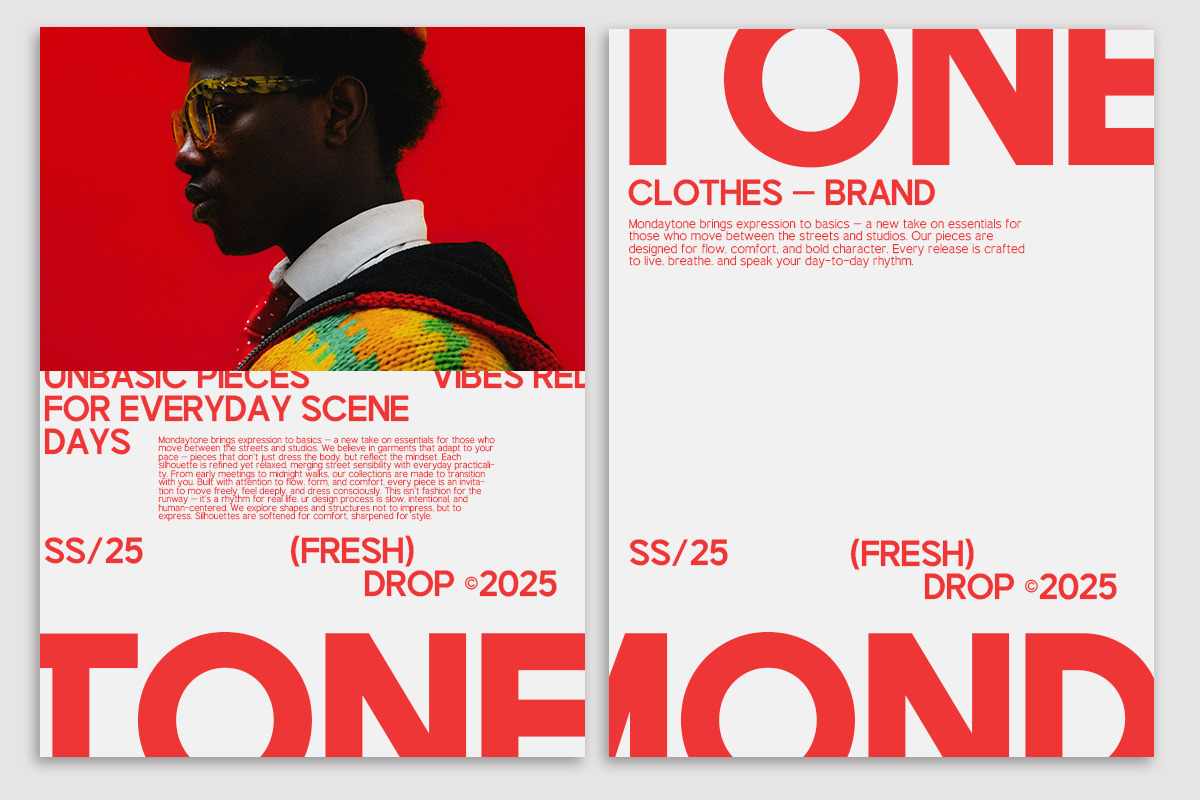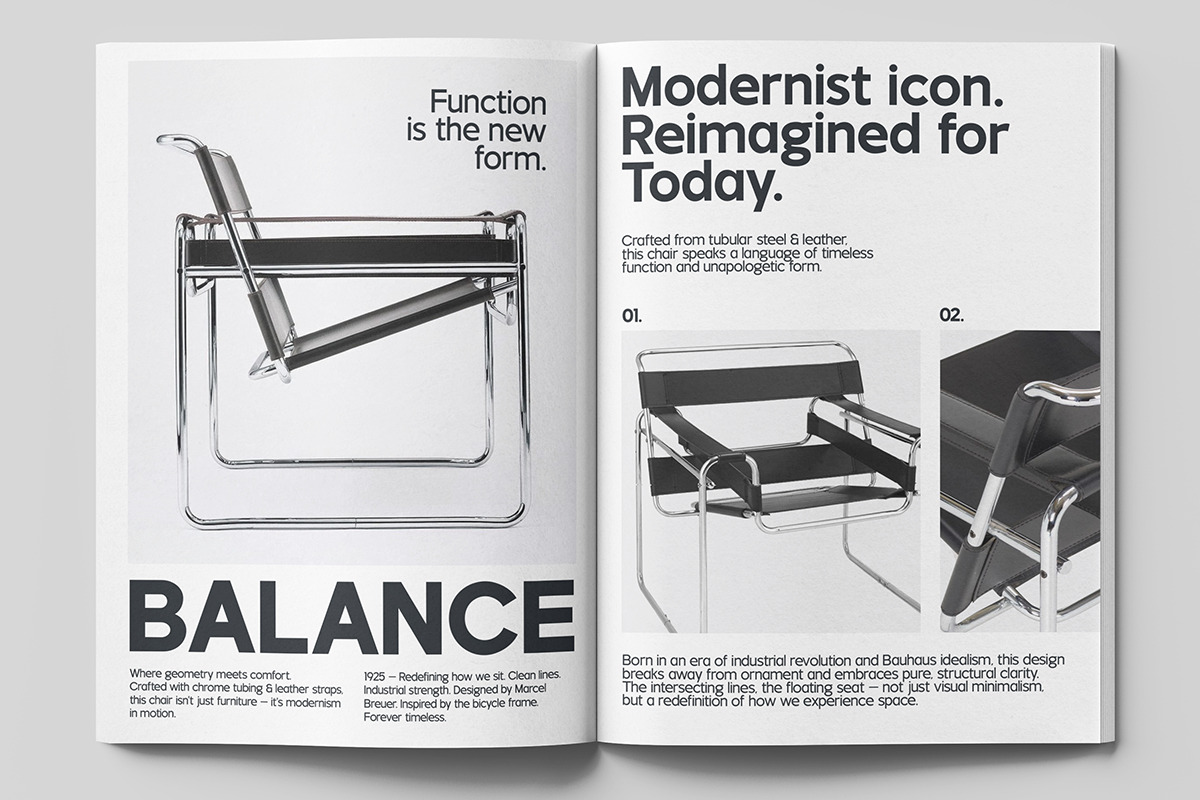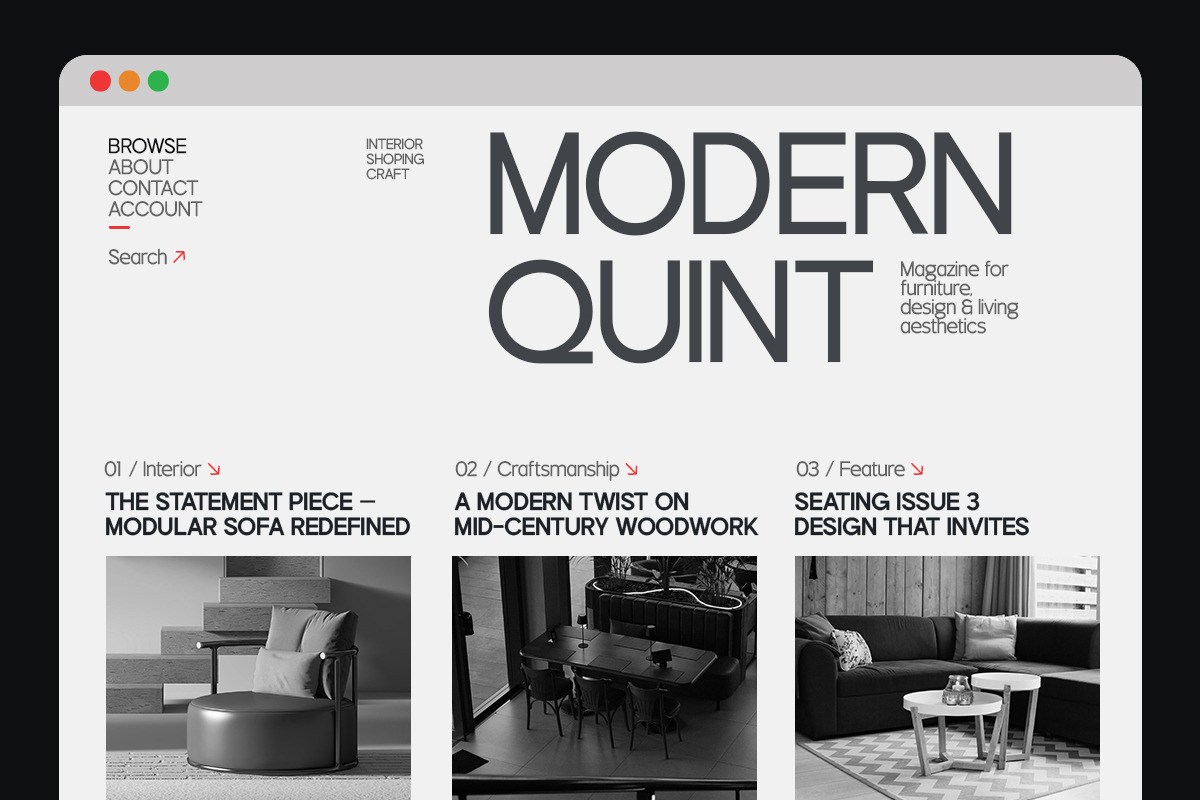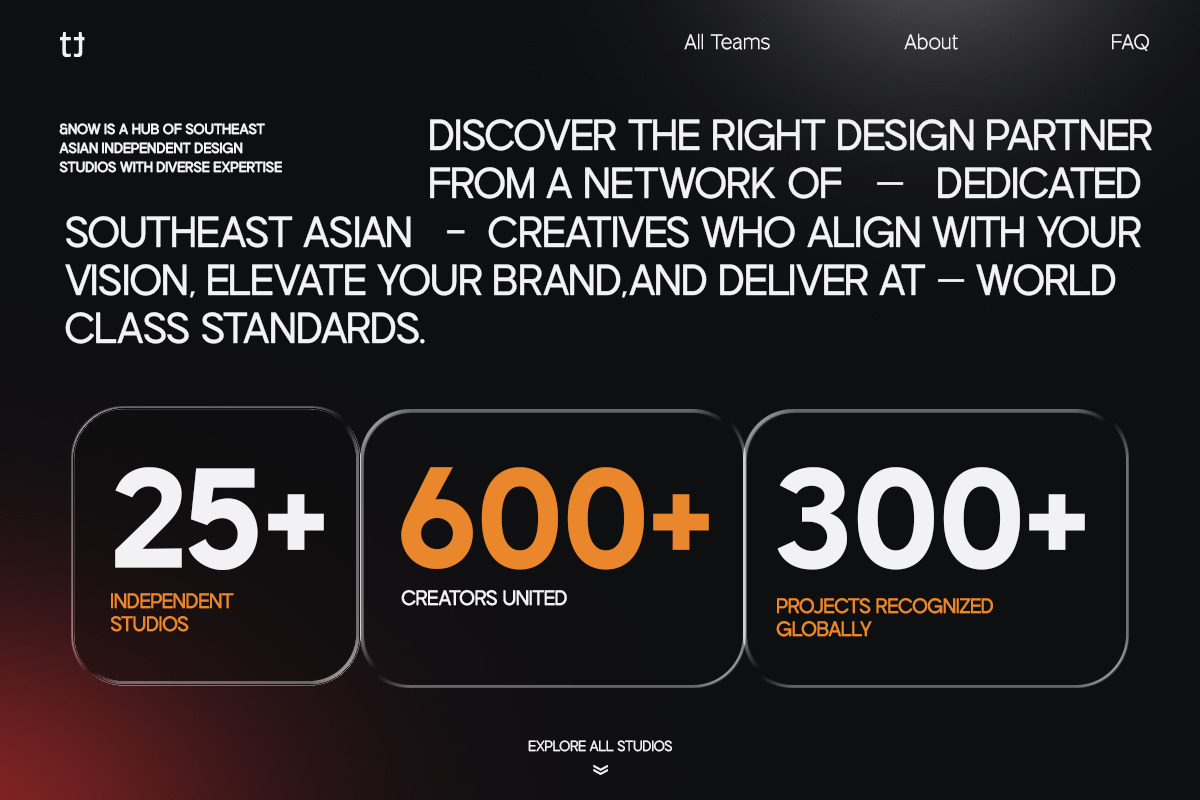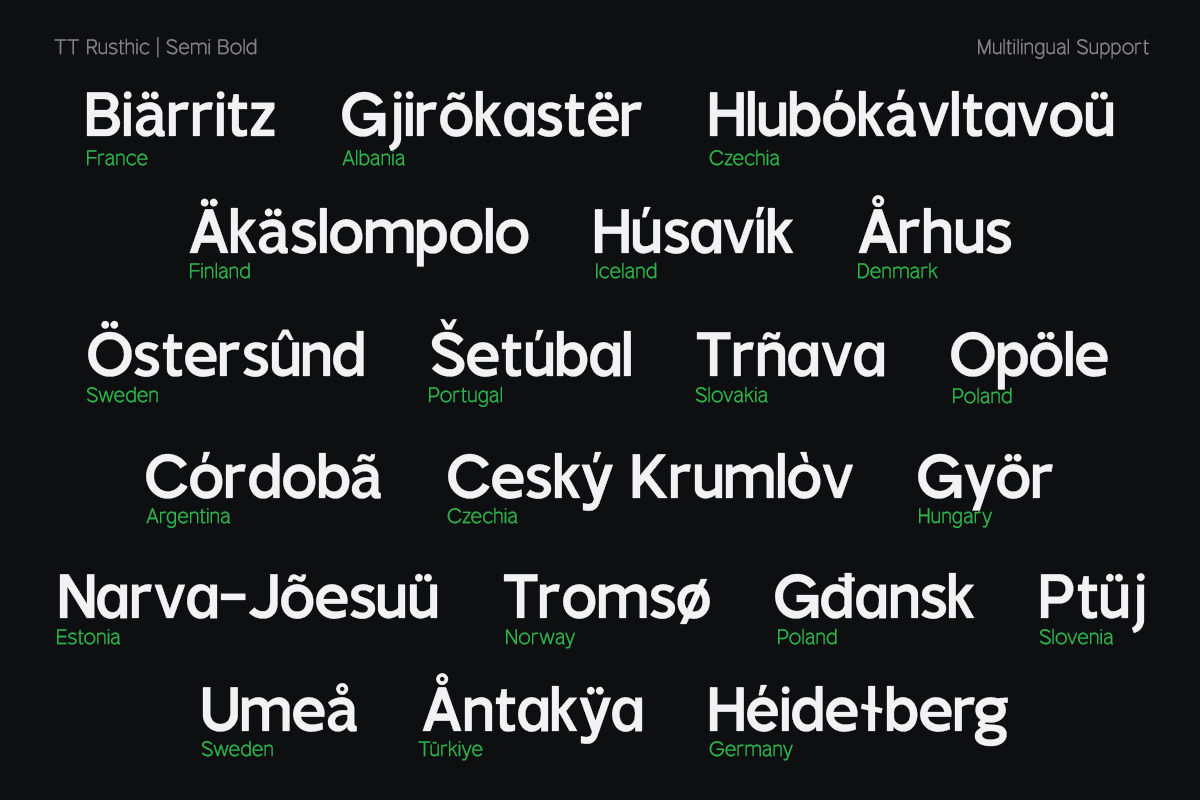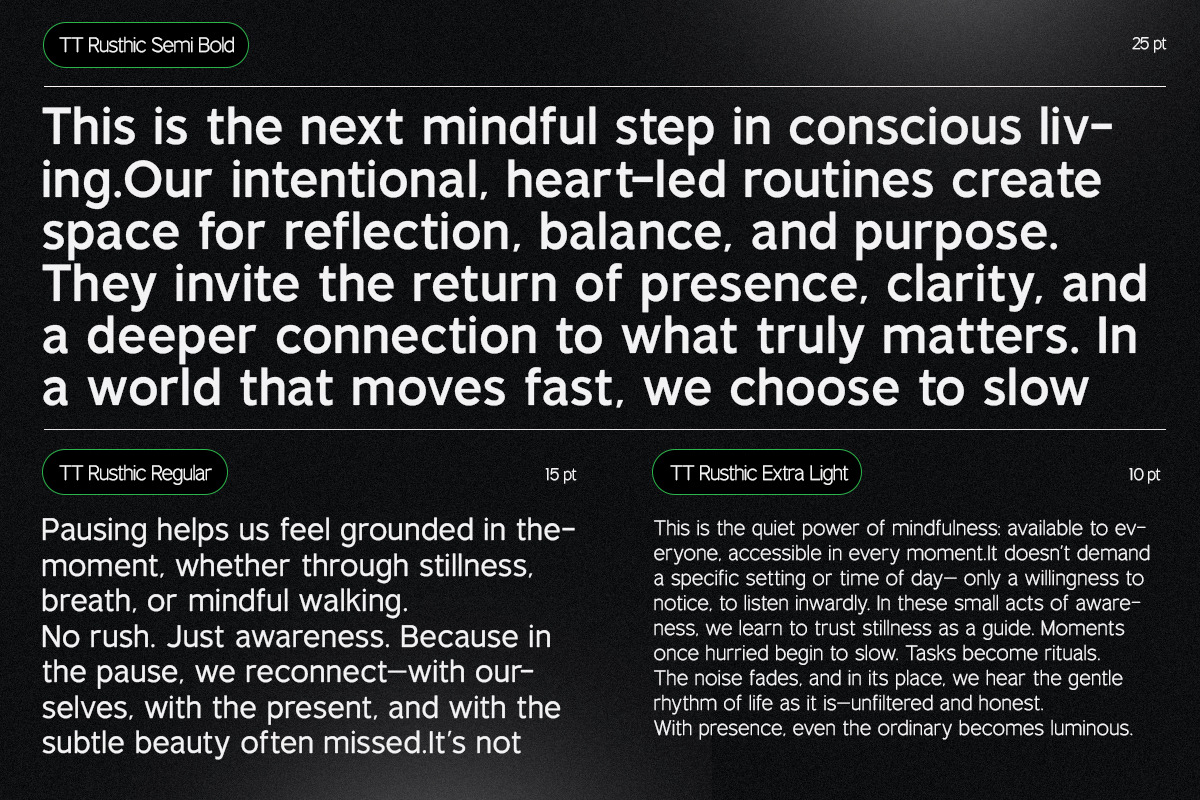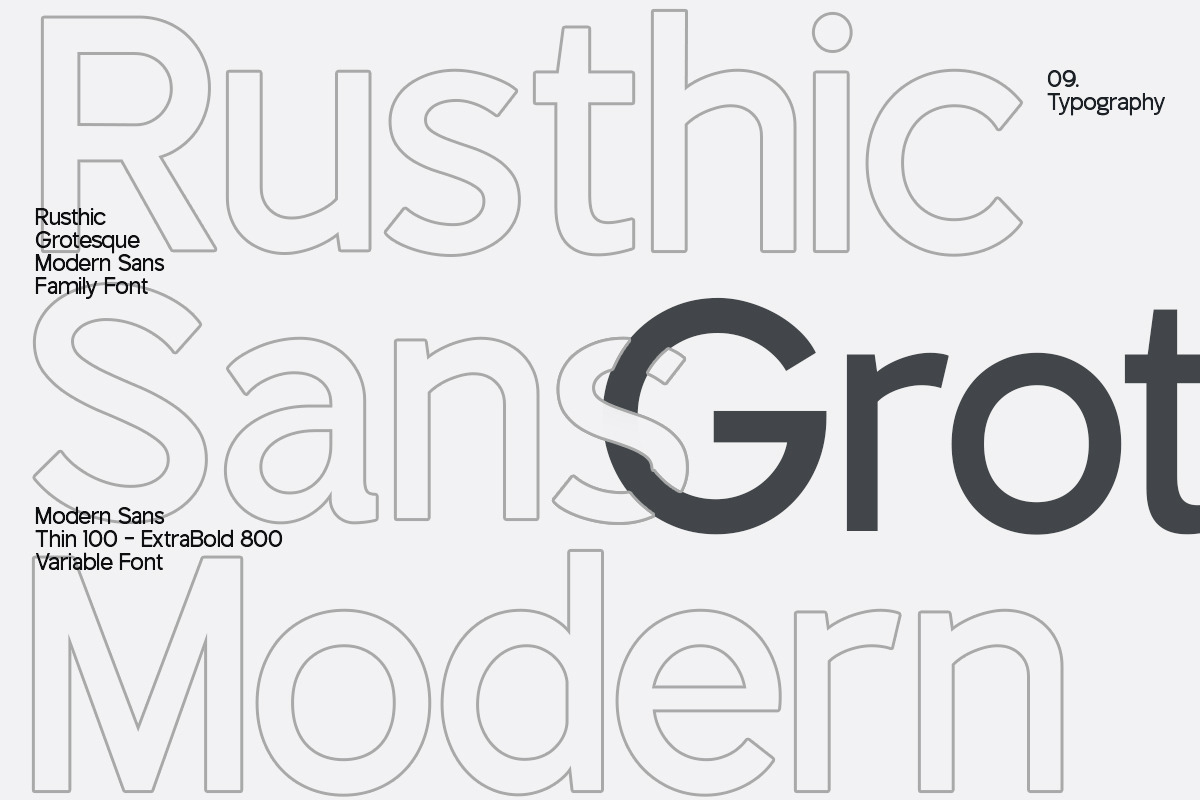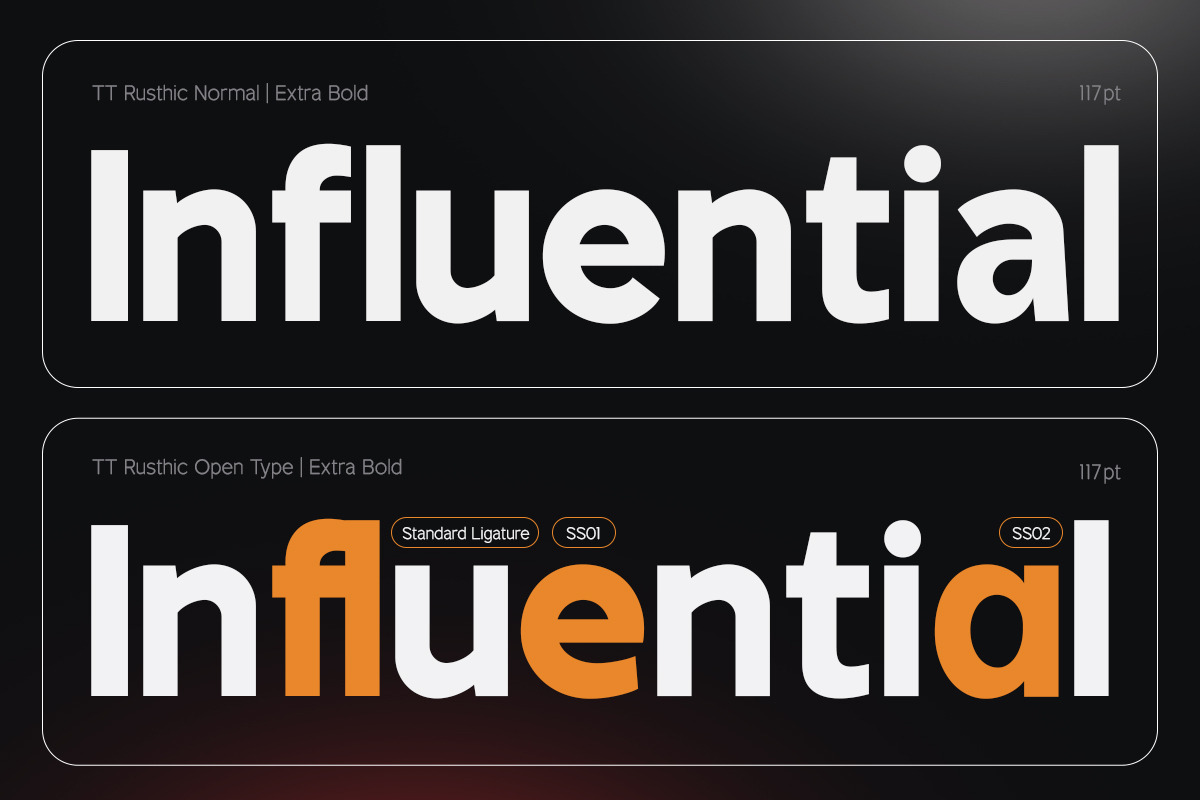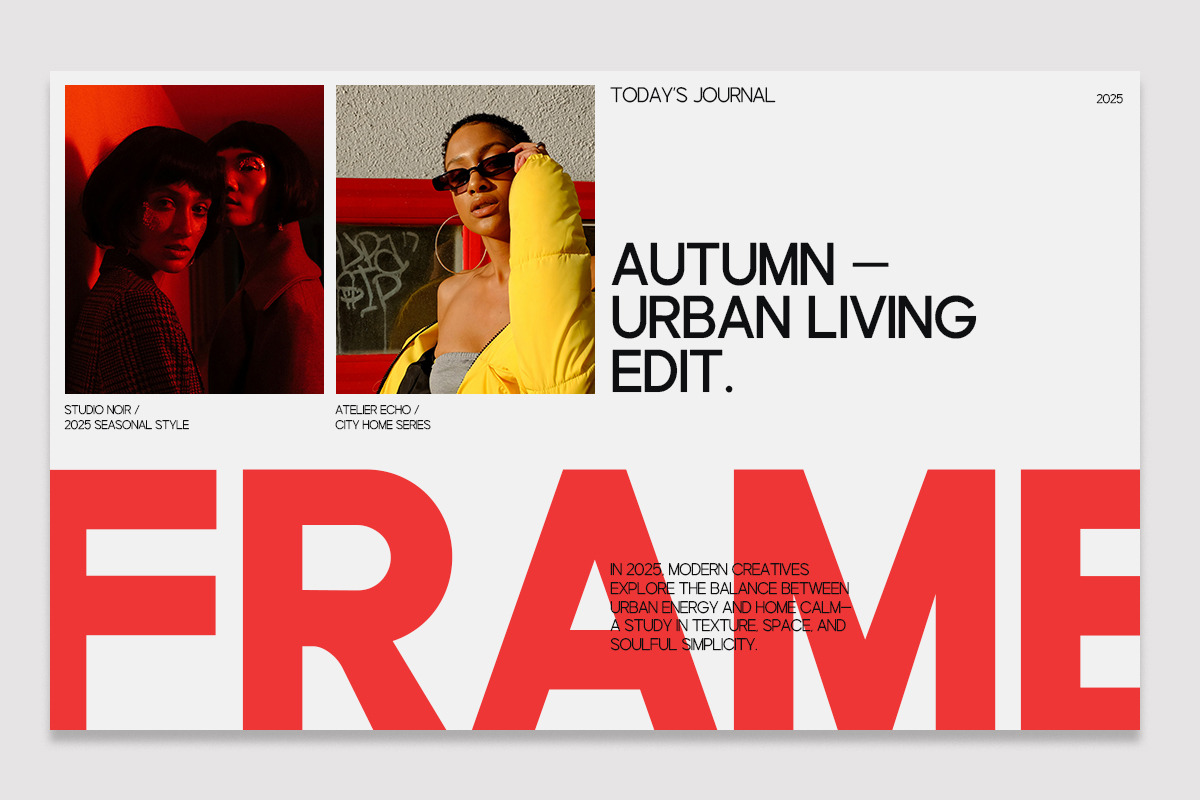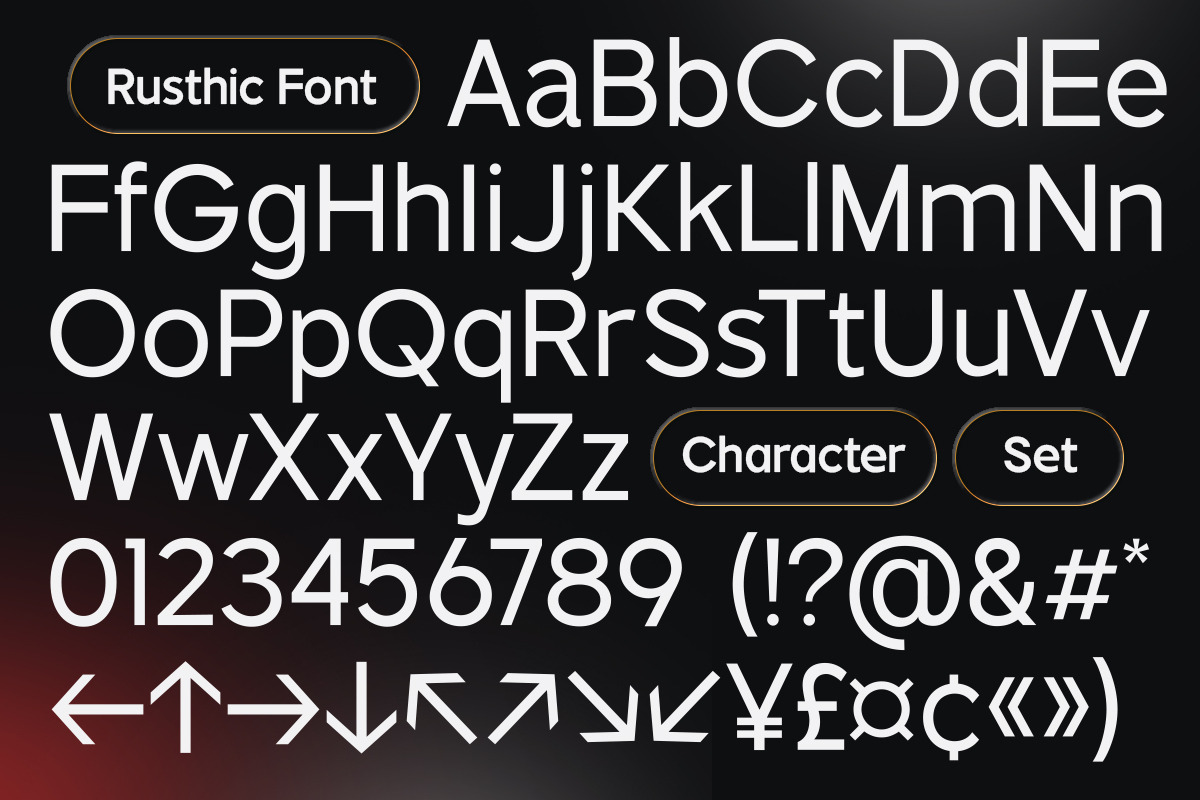
TT Rustic Grotesque Sans
TT Rusthic is a modern, grotesque sans-serif font family designed to bring clarity, flexibility, and contemporary character to your creative work. With a full variable range from Thin 100 to ExtraBold 800, this font adapts easily to a wide range of visual applications—from bold headlines to sleek interface typography.
With clean curves, balanced spacing, and subtle geometric touches, TT Rusthic blends the functional simplicity of grotesque with a warm, modern soul. Its open letterforms and smooth rhythm ensure excellent readability, while its expressive weight range lets you set the right tone for your message.
Whether you're designing brand identities, editorial layouts, digital content, or packaging systems, TT Rusthic delivers a professional yet accessible feel that works beautifully in print and on screen.
Built with OpenType features and full variable support, this font is built to meet the demands of today's fast-paced design world—reliable, flexible, and deeply human.